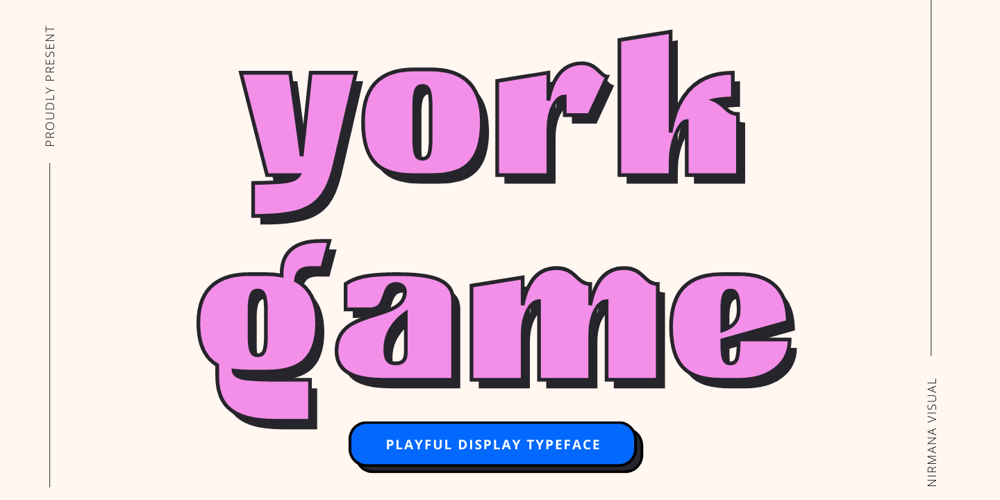
York Game
York Game font
York Game Font Family was designed by Sigit Dwipa and published by Nirmana Visual. York Game contains 1 styles and family package options. York Game – Retro Playful Display, very suitable for the title, logo, typography, clothes, magazines, brochures, packaging and much more for your design needs, making your designs more modern and professional.